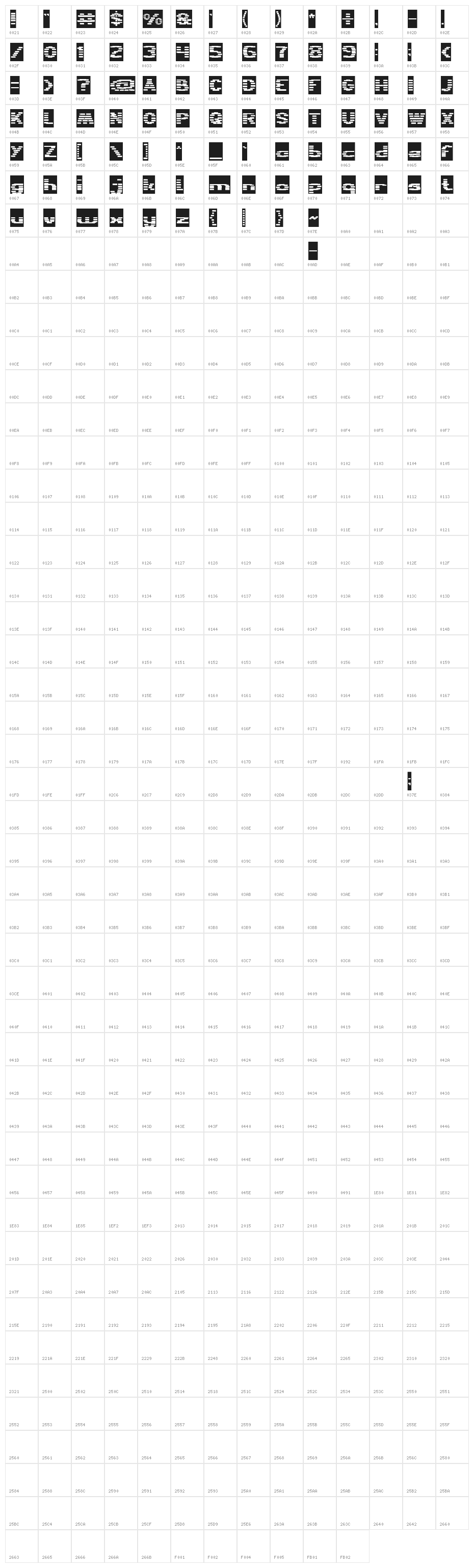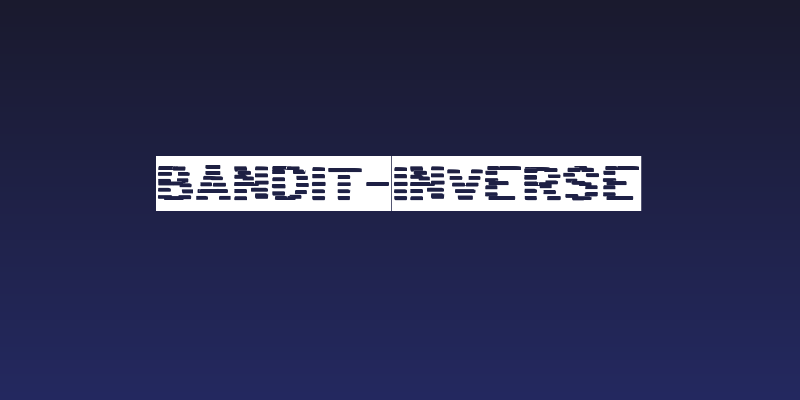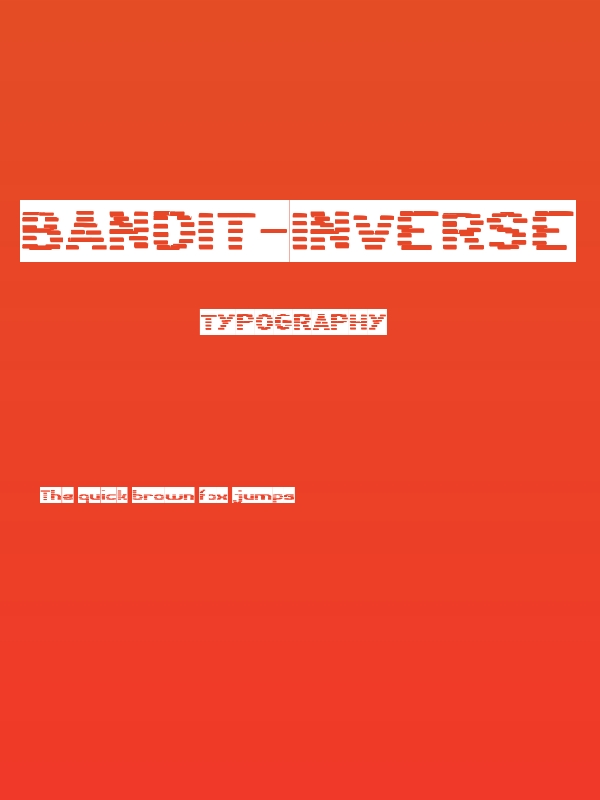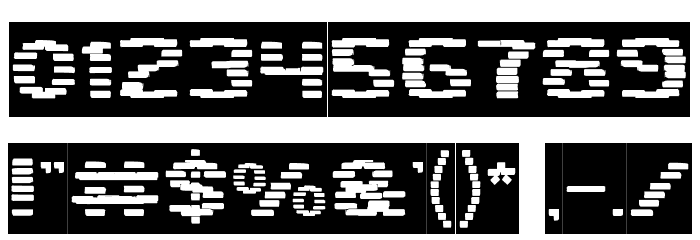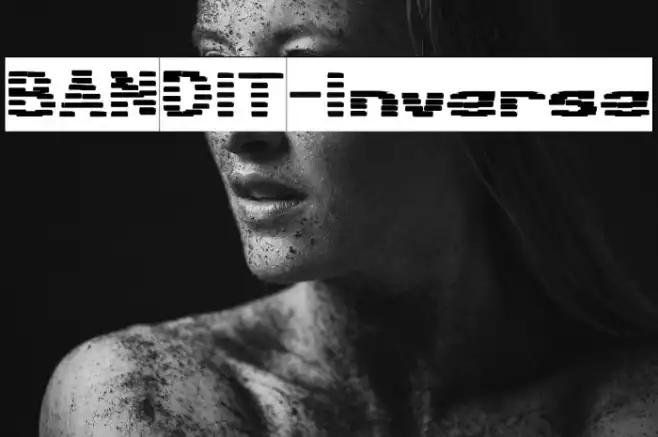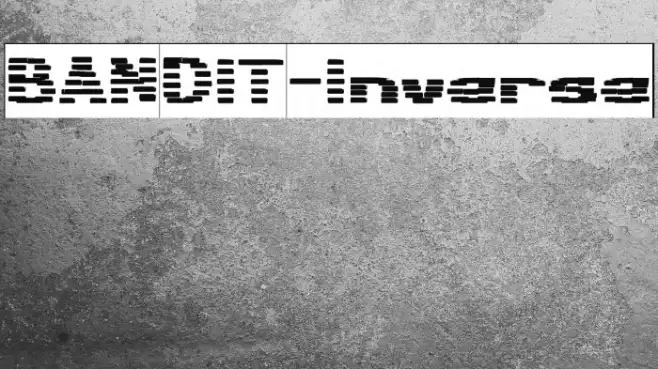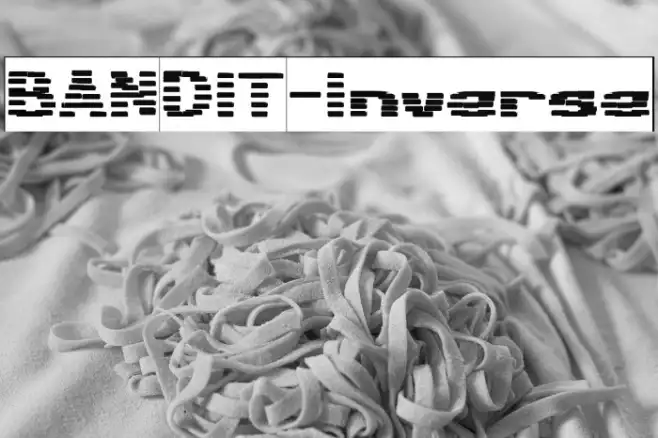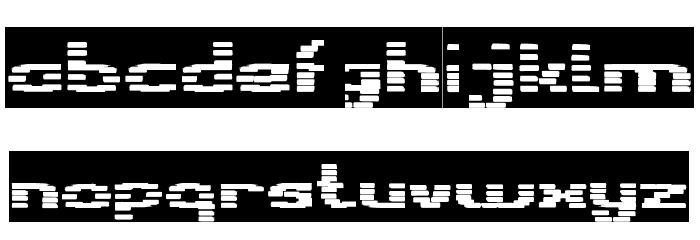
BANDIT-Inverse Font
BANDIT-Inverse Description
This font features a unique, digital-inspired design with a segmented, blocky appearance reminiscent of LED displays or digital clocks. Each character is composed of horizontal and vertical segments, creating a futuristic and technological aesthetic. The uppercase and lowercase letters maintain a consistent style, with the lowercase being slightly smaller in height. The numbers and special characters follow the same segmented pattern, ensuring uniformity across all glyphs. This font's distinct style makes it stand out, ideal for projects that require a modern, tech-savvy look.